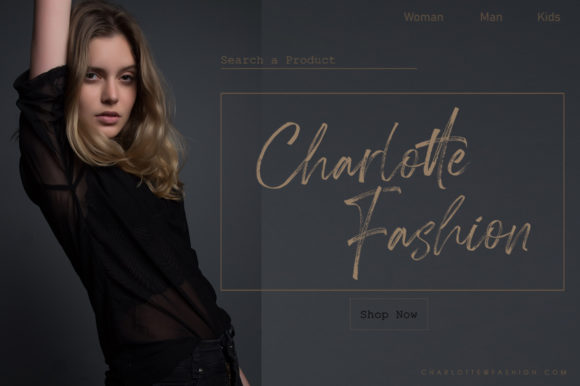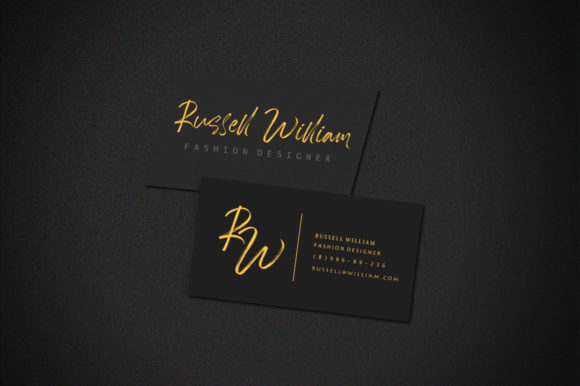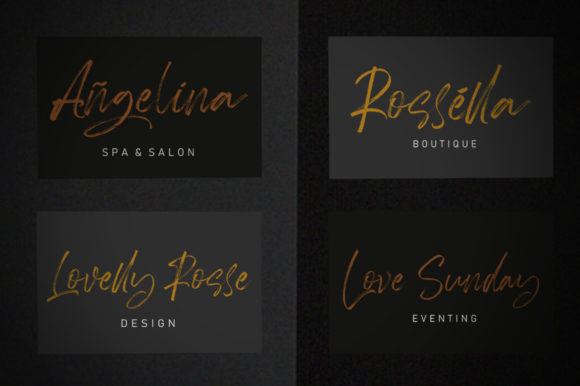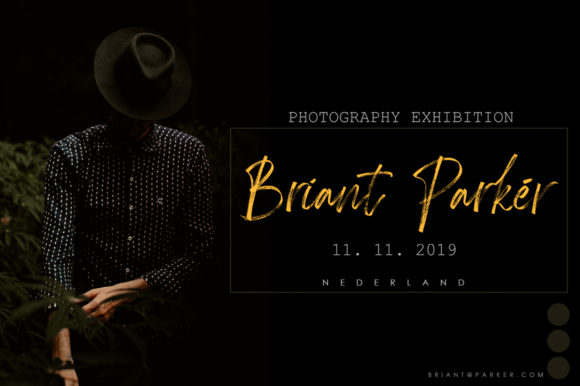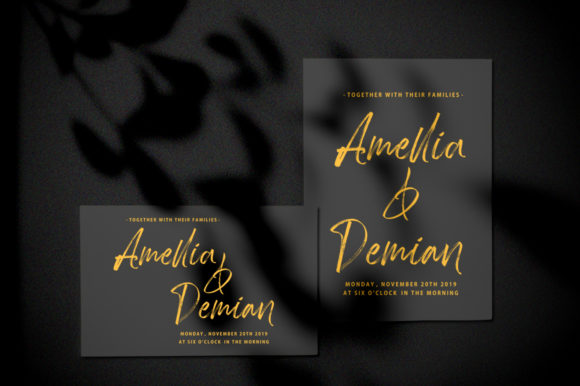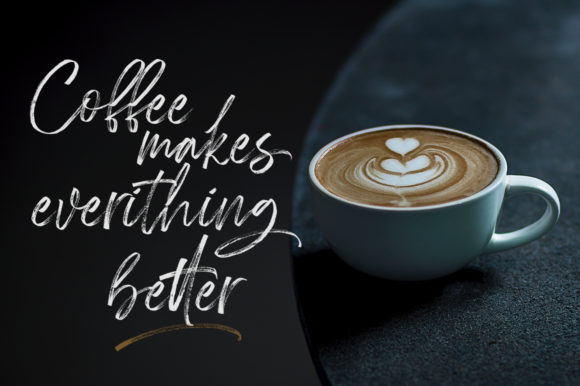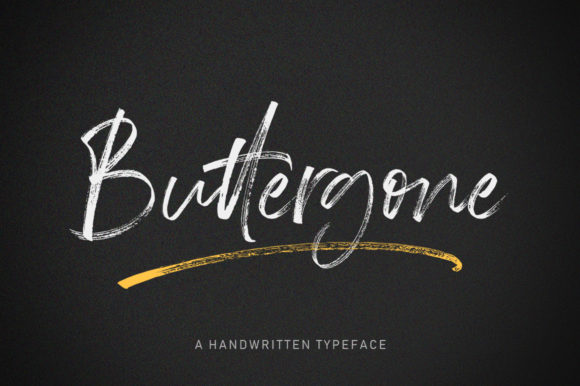
Introducing Buttergone Font: The Cool and Serious Brush Font That’s Taking Design by Storm
In the world of typography, fonts play a crucial role in making or breaking a design. A well-chosen font can elevate a design from ordinary to extraordinary, while a poorly chosen one can have the opposite effect. For designers and crafters looking to add a touch of personality to their projects, Buttergone Font is a game-changer. This cool and serious brush font with an irregular baseline is taking the design world by storm, and for good reason.
What Makes Buttergone Font So Special?
Buttergone Font boasts a contemporary approach to design, making it a standout in the world of typography. Its unique blend of cool and serious tones, combined with its irregular baseline, gives it a distinctive look that’s both stylish and attention-grabbing. Whether you’re working on a branding project, a craft, or a digital design, Buttergone Font is sure to turn your design idea into a true standout.
The Benefits of Using Buttergone Font
So, what are the benefits of using Buttergone Font in your designs? Here are just a few:
- Unique and Memorable: Buttergone Font’s irregular baseline and distinctive look make it a memorable and unique addition to any design.
- Versatile: Whether you’re working on a digital design, a craft, or a branding project, Buttergone Font is versatile enough to fit in seamlessly.
- Easy to Read: Despite its irregular baseline, Buttergone Font is surprisingly easy to read, making it perfect for use in a variety of applications.
- High-Quality: As a high-quality brush font, Buttergone Font is perfect for use in designs where you want to add a touch of personality and whimsy.
How to Use Buttergone Font in Your Designs
Using Buttergone Font in your designs is easy. Here are a few tips to get you started:
- Pair it with a Simple Background: To really make Buttergone Font stand out, pair it with a simple background that won’t compete with the font.
- Experiment with Colors: Buttergone Font looks great in a variety of colors, so don’t be afraid to experiment and find the perfect hue for your design.
- Use it for Headings: Buttergone Font is perfect for use in headings and titles, where its unique look can really make an impact.
- Mix it with Other Fonts: For added visual interest, try mixing Buttergone Font with other fonts to create a unique and eye-catching design.
Who Can Benefit from Using Buttergone Font?
Buttergone Font is perfect for a wide range of designers and crafters, including:
- Graphic Designers: Whether you’re working on a branding project or a digital design, Buttergone Font is a great addition to your font library.
- Crafters: If you’re a crafter looking to add a touch of personality to your projects, Buttergone Font is a great choice.
- Small Business Owners: If you’re looking for a unique and memorable font to use in your branding, Buttergone Font is a great option.
In conclusion, Buttergone Font is a cool and serious brush font that’s taking the design world by storm. Its unique blend of cool and serious tones, combined with its irregular baseline, makes it a standout in the world of typography. Whether you’re a graphic designer, a crafter, or a small business owner, Buttergone Font is a great addition to your font library. So why not give it a try and see the difference it can make in your designs?